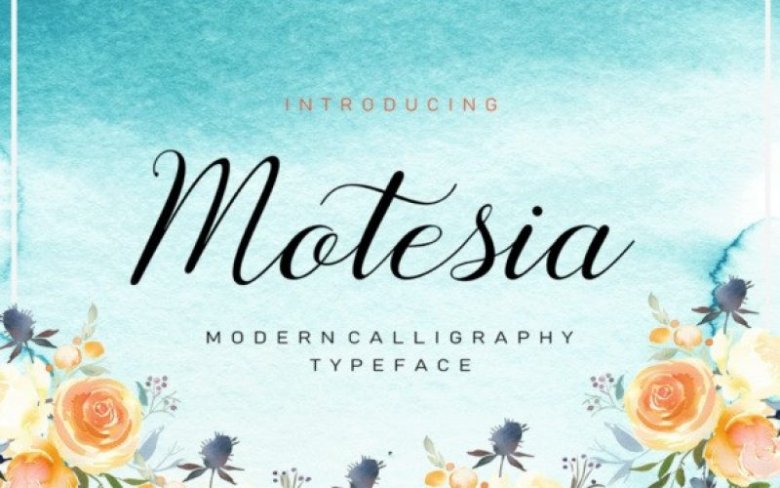
Motesia Calligraphy Font
Motesia is a beautifully modern and fluid calligraphy script, ideal for use in elegant designs. This font has a dancing look and adds tons of femininity to any type of project.